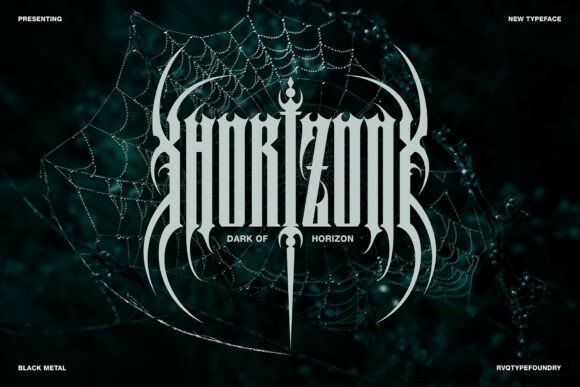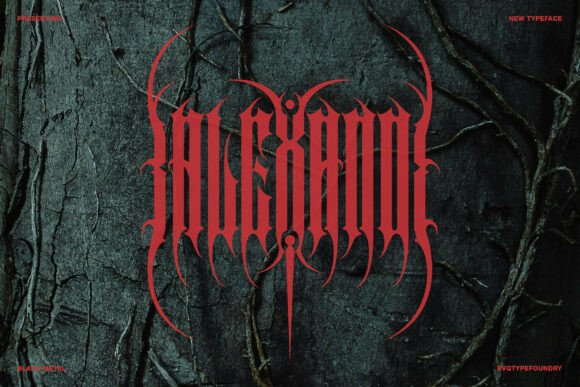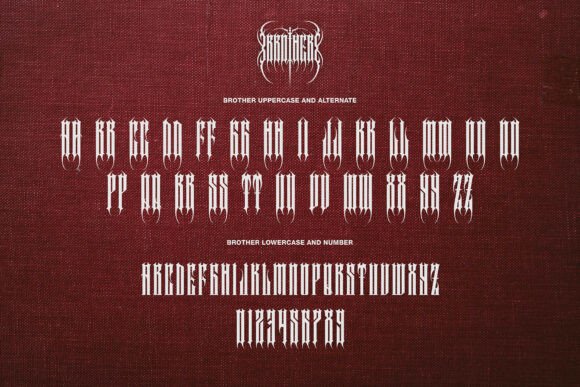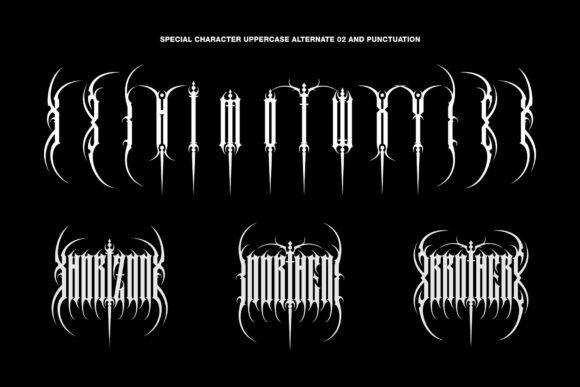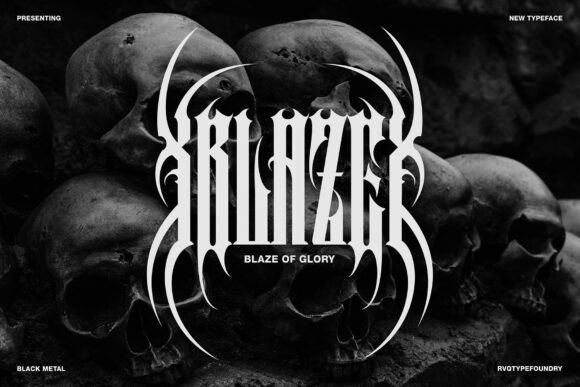
Unleash the Power of Brother Blackmetal Font: The Ultimate Choice for Extreme Typography
Are you a designer or crafter looking to make a bold statement with your creative projects? Look no further than the Brother Blackmetal font, a specialized black metal typeface designed to command attention and evoke the darkest and most intense emotions. This Brother typeface is the perfect choice for those who want to push the boundaries of extreme typography and create a visual statement of power and aggression.
Design Features of Brother Blackmetal Font
The Brother Blackmetal font boasts a range of design features that make it the definitive selection for band logos, extreme sports apparel, and horror-themed merchandise. Its key features include:
- Razor-sharp terminals: The font’s terminals are sharp and edgy, giving it a bold and aggressive look that’s perfect for extreme typography.
- Symmetrical blade-like extensions: The font’s extensions are symmetrical and blade-like, adding to its overall sense of power and intensity.
- Vertical structure inspired by classic metal logos: The font’s vertical structure is inspired by classic metal logos, giving it a strong and rugged look that’s perfect for band logos and heavy metal-inspired designs.
Tips for Maximizing Impact with Brother Blackmetal Font
To get the most out of the Brother Blackmetal font, try layering it over high-contrast textures like worn fabric or dark stone. This will add depth and dimension to your design, making it even more impactful and intense. You can also experiment with different colors and effects to create a unique look that reflects your brand or style.
Perfect for a Range of Creative Projects
The Brother Blackmetal font is perfect for a wide range of creative projects, including:
- Band logos and music branding: The font’s bold and aggressive look makes it perfect for band logos and music branding.
- Extreme sports apparel: The font’s edgy design makes it a great choice for extreme sports apparel, such as skateboarding or motocross gear.
- Horror-themed merchandise: The font’s dark and intense look makes it perfect for horror-themed merchandise, such as t-shirts, posters, and stickers.
- Clothing and apparel: The font’s bold design makes it a great choice for clothing and apparel, such as t-shirts, hoodies, and hats.
- Branding and logos: The font’s unique design makes it a great choice for branding and logos, especially for businesses that want to make a bold statement.
- Greeting cards and stationery: The font’s edgy design makes it a great choice for greeting cards and stationery, especially for those who want to add a touch of edge to their correspondence.
- Invitations and packaging designs: The font’s bold design makes it a great choice for invitations and packaging designs, especially for those who want to make a lasting impression.
- Posters and typographic design: The font’s unique design makes it a great choice for posters and typographic design, especially for those who want to create a bold and eye-catching display.
Creating Beautiful Combinations with Brother Blackmetal Font
To create a beautiful combination with the Brother Blackmetal font, try mixing your words with alternative glyphs and punctuation, such as brackets and parentheses. This will add a touch of elegance and sophistication to your design, while still maintaining the font’s bold and aggressive look.
| Author | Rvq Type Foundry |
The Brother Blackmetal font is a powerful and intense typeface that’s perfect for designers and crafters who want to push the boundaries of extreme typography. With its razor-sharp terminals, symmetrical blade-like extensions, and vertical structure inspired by classic metal logos, this font is sure to command attention and evoke the darkest and most intense emotions. Whether you’re creating a band logo, extreme sports apparel, or horror-themed merchandise, the Brother Blackmetal font is the definitive selection for those who want to make a bold statement.